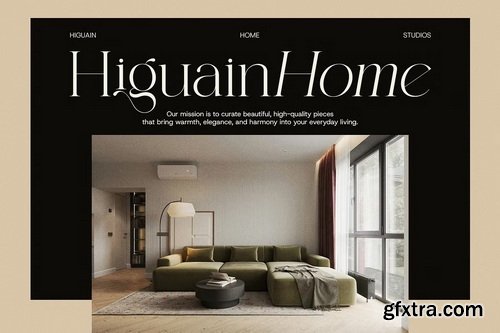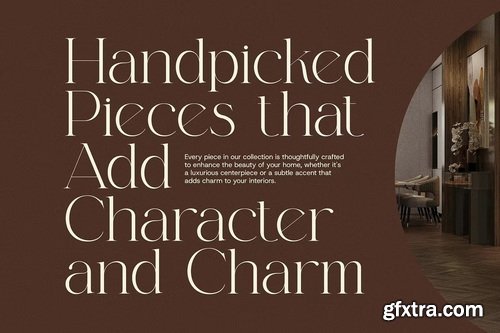
CreativeMarket - Magline Elegant Serif Font
Magline Elegant Serif Font is a sophisticated typeface that blends modern minimalism with timeless beauty. Designed to make a bold yet refined impression, Magline features gracefully sculpted letterforms, high-contrast strokes, and eye-catching ligatures that breathe elegance into every word. This modern serif font stands out with its smooth curves and stylish alternates, offering a luxurious aesthetic perfect for premium branding and creative design projects. Whether you're creating a fashion-forward logo, designing editorial spreads, or crafting upscale packaging, Magline gives your work a polished, contemporary look. With its unique ligatures and alternate characters, Magline allows for expressive typography that feels custom and thoughtfully crafted. It’s the ideal choice for designers who want to blend elegance with modern design trends.